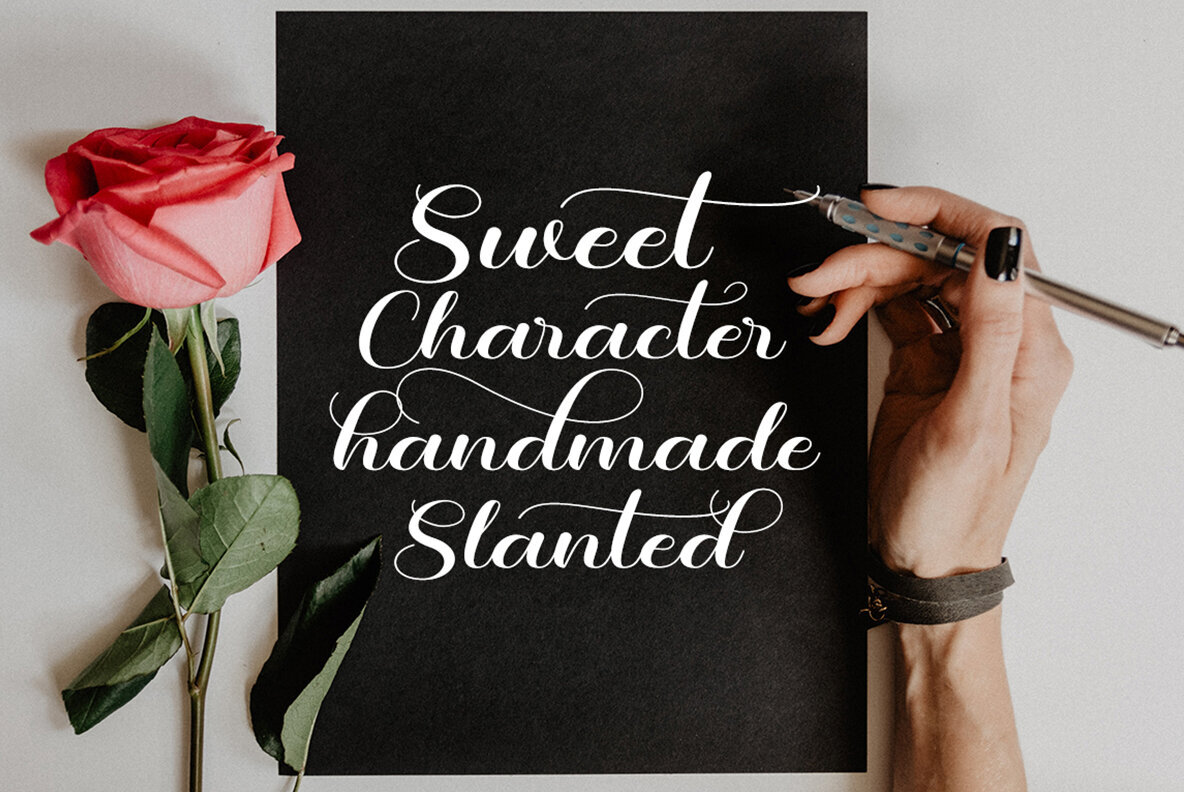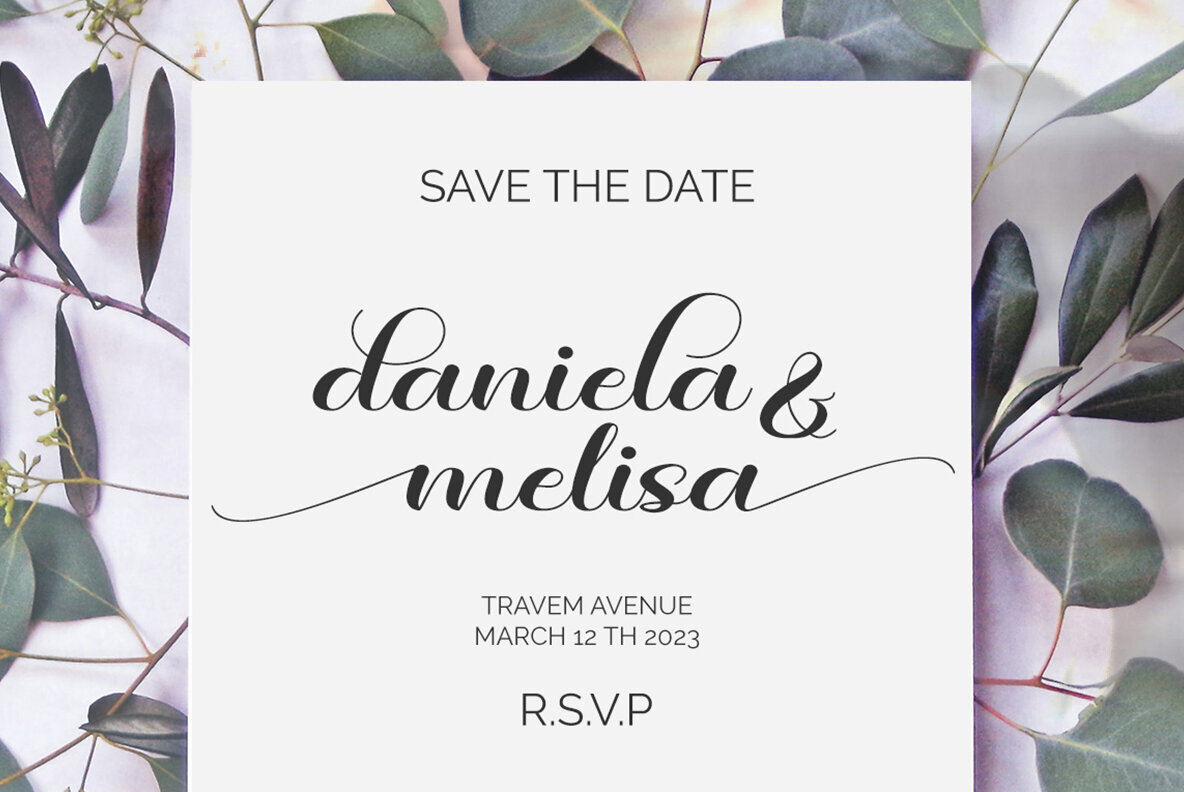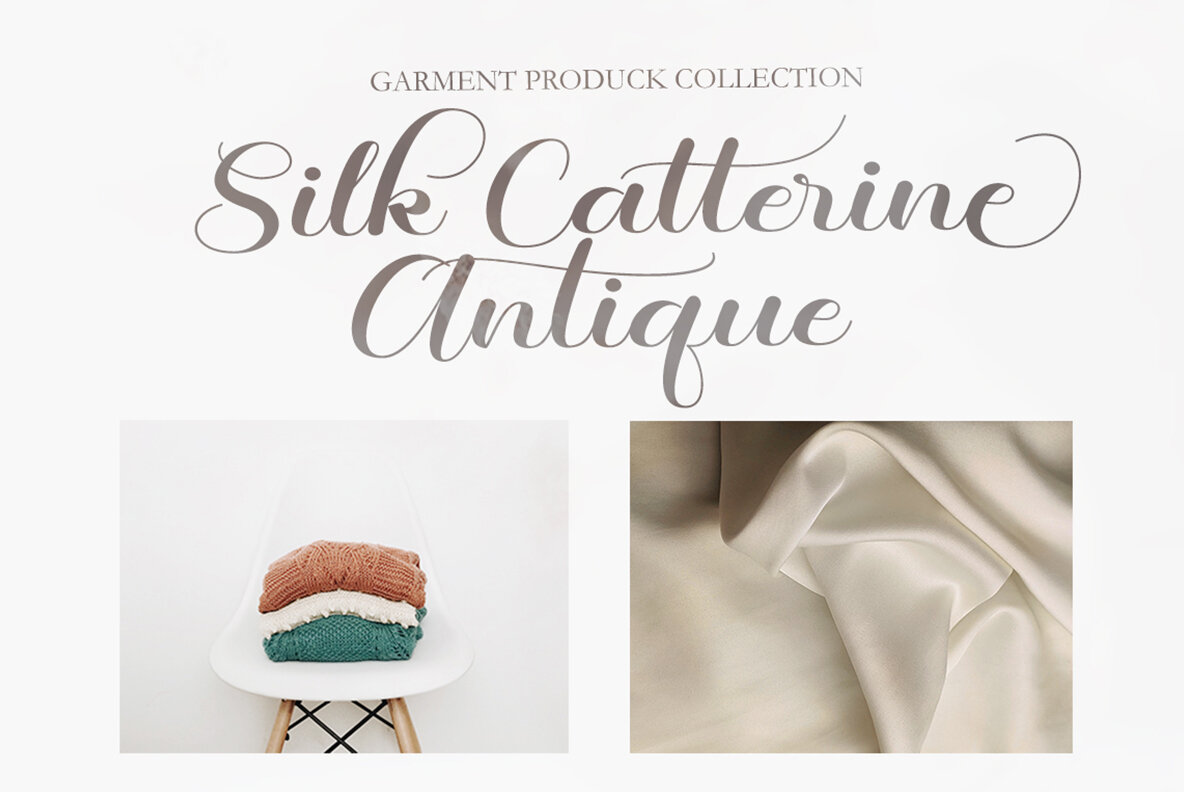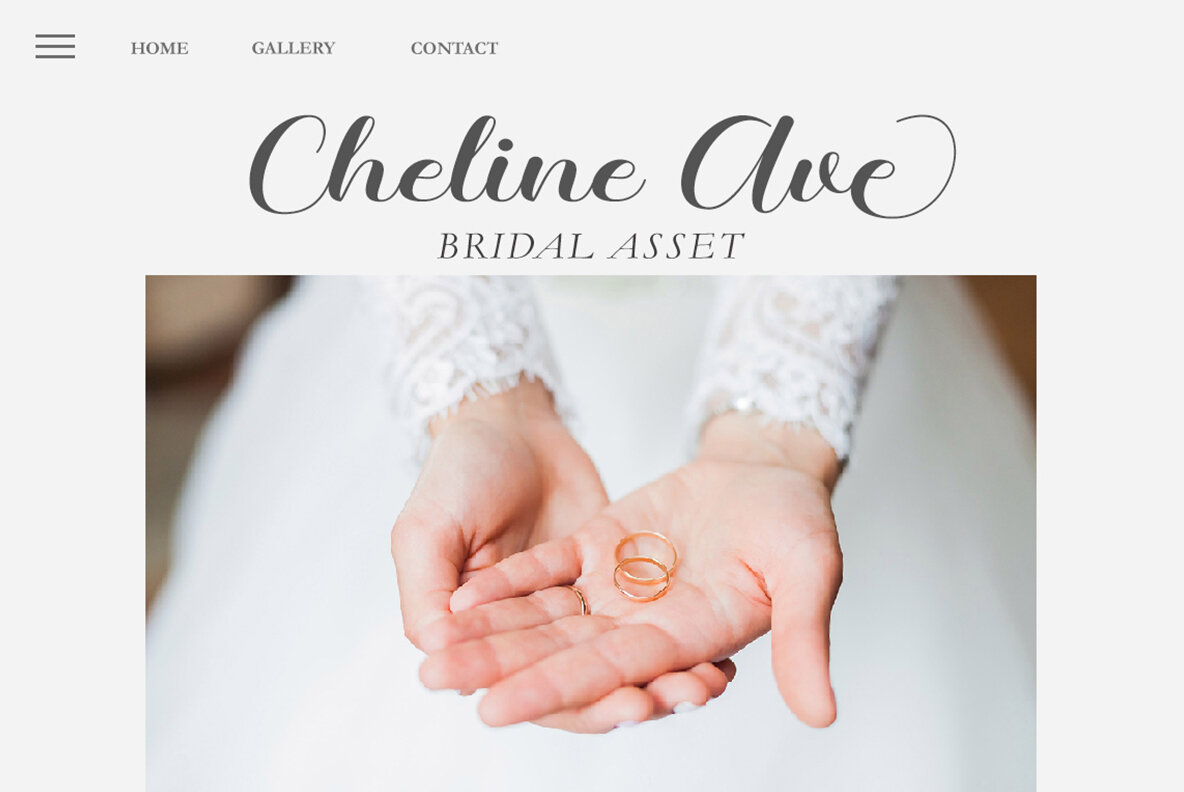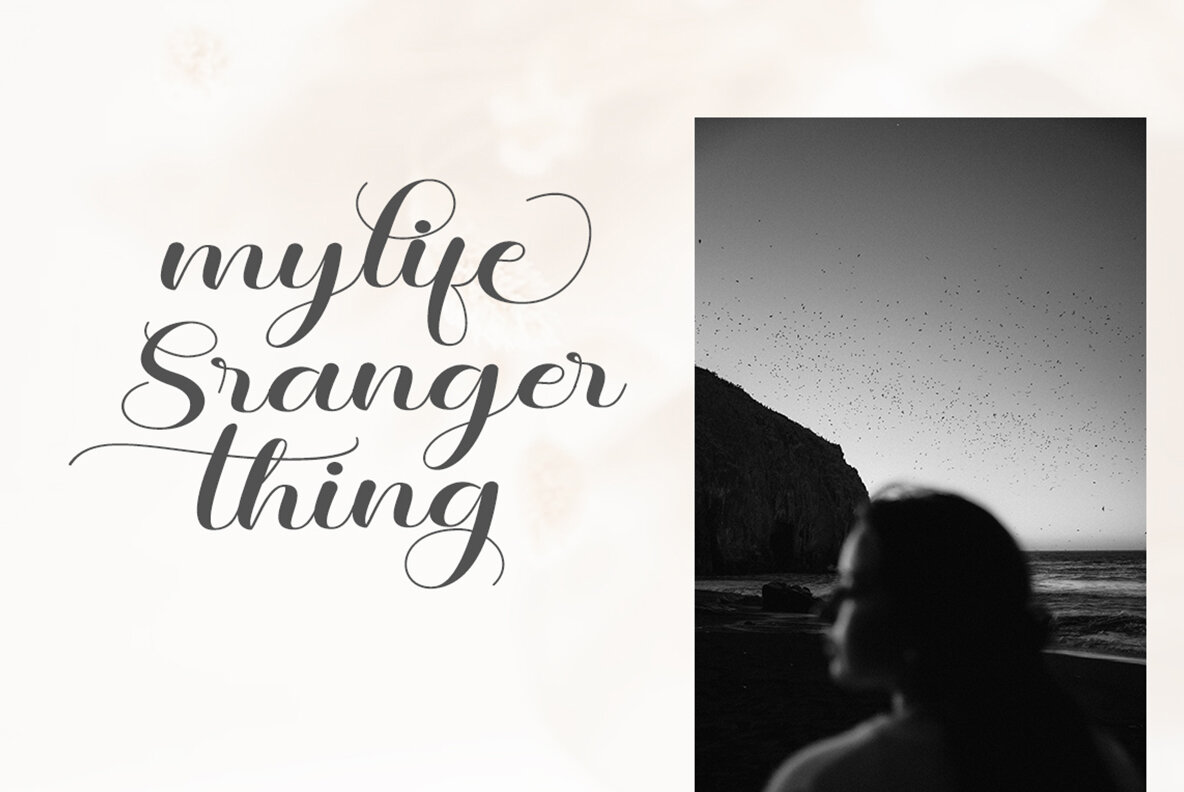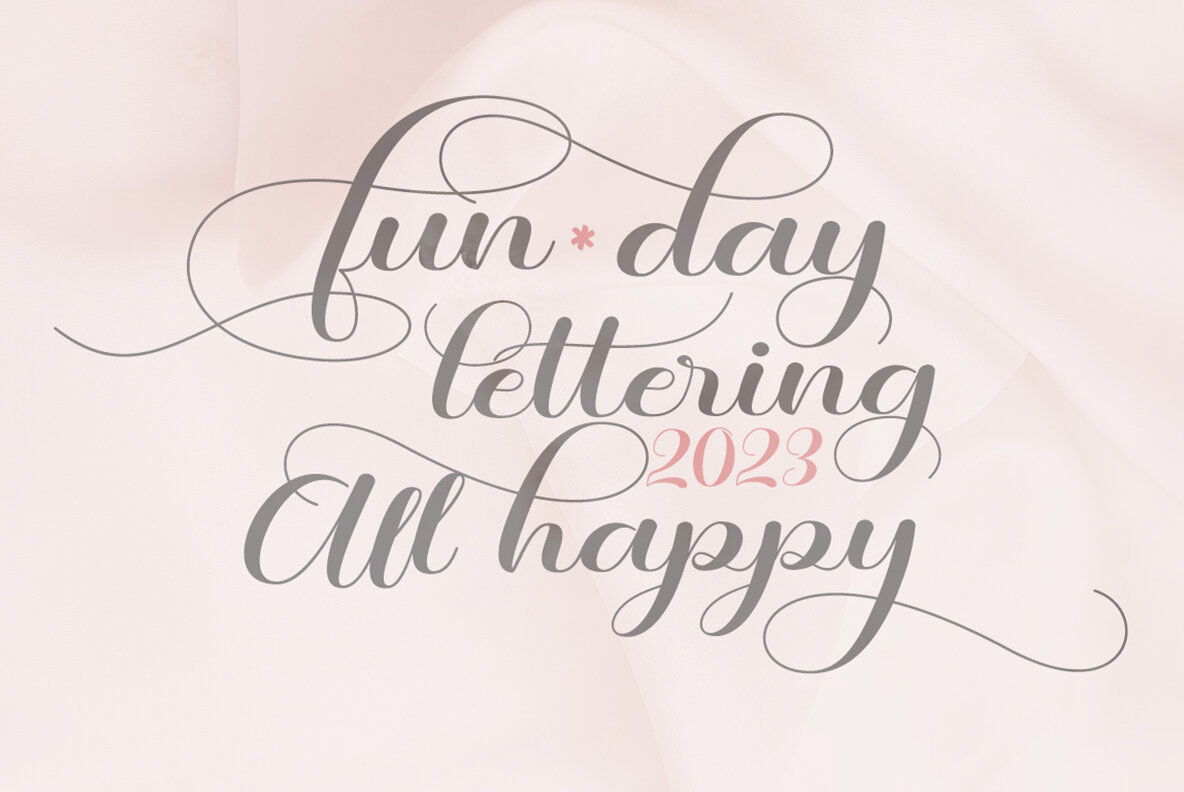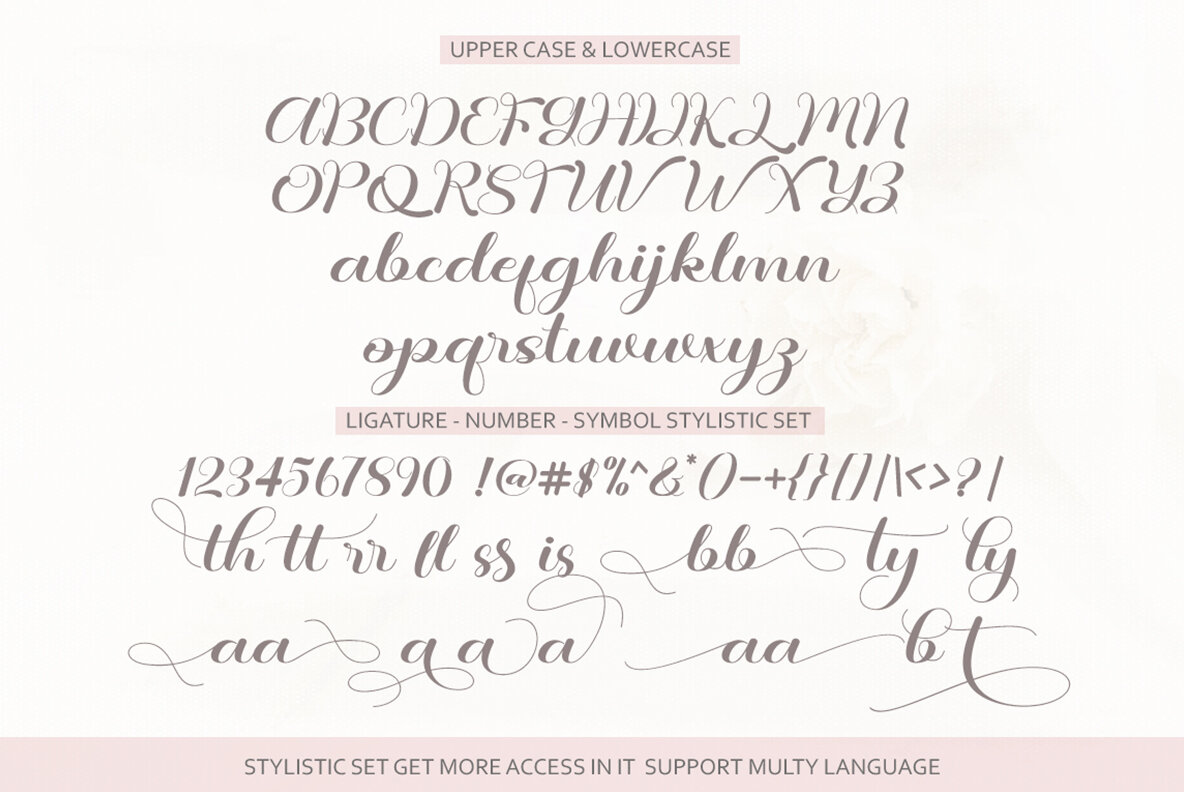
Child Sweetnes Font
Child Sweetnes Regular
Inspired by creative little sister's diary. Introducing the Child Sweetnes Font, our new and fun collection of fonts. Combining hand drawn style with a modern twist. Kids Child Sweetnes comes with a ligature alternative that you can use to give your projects more options. Perfect for invitations, logos, notes, posters, t-shirts, stickers, posters, mugs, labels, etc.